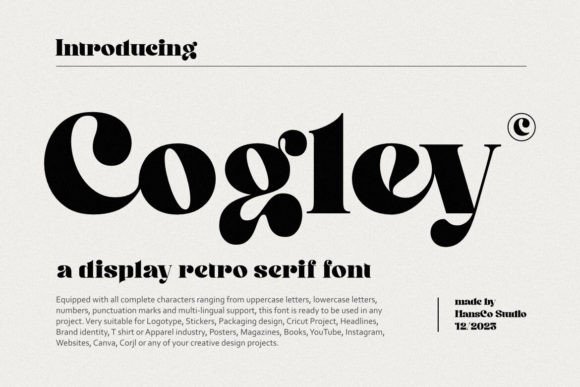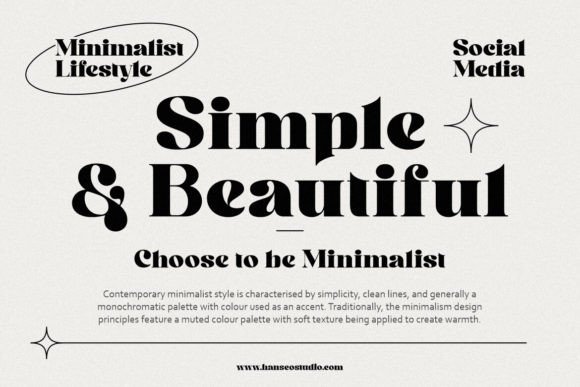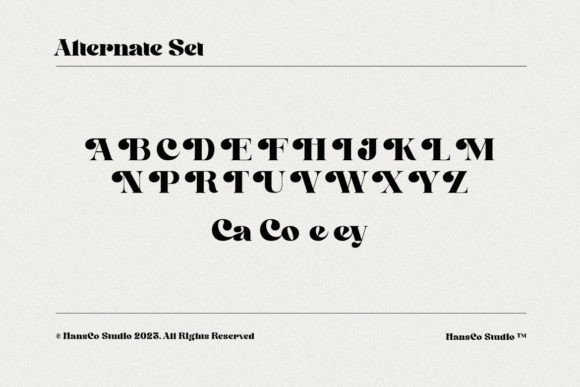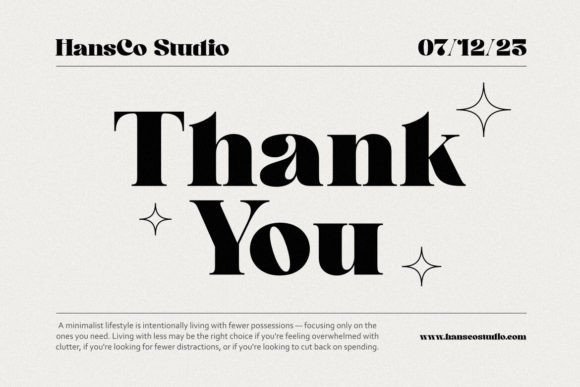
Cogley Font
Cogley Font is a serif typeface with vintage and retro look!. Equipped with all complete characters ranging from uppercase letters, lowercase letters, numbers, punctuation marks and multi-lingual support, this font is ready to be used in any project. Very suitable for Logotype, Stickers, Packaging design, Cricut Project, Headlines, Brand identity, T shirt or Apparel industry, Posters, Magazines, Books, YouTube, Instagram, Websites, Canva, Corjl or any of your creative design projects. Use this Cogley Font to add that special modern retro serif touch to any design idea you can think of!